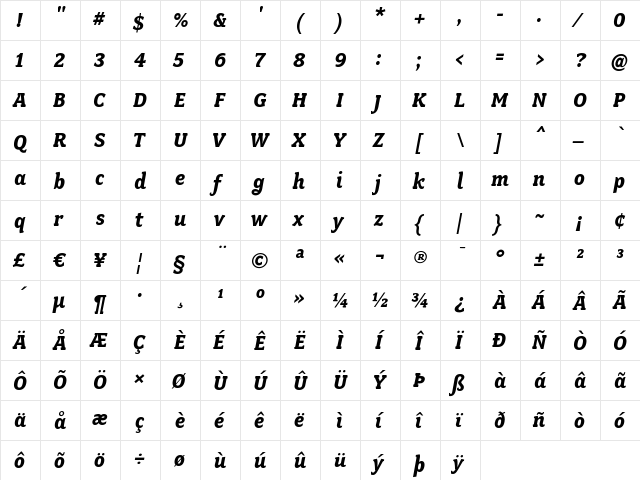
FairplexNarrowBoldItalic Regular Font Preview
| Designer | Zuzana Licko |
Design Context for FairplexNarrowBoldItalic Typeface
FairplexNarrowBoldItalic takes a measured approach to typography — its balanced proportions and neutral character make it a reliable workhorse for both digital and print work. The dynamic lean of this cut emphasises speed and emphasis in any layout. Its bold stroke weight gives it real presence on the page. The condensed width makes it efficient for tight spaces without sacrificing legibility.